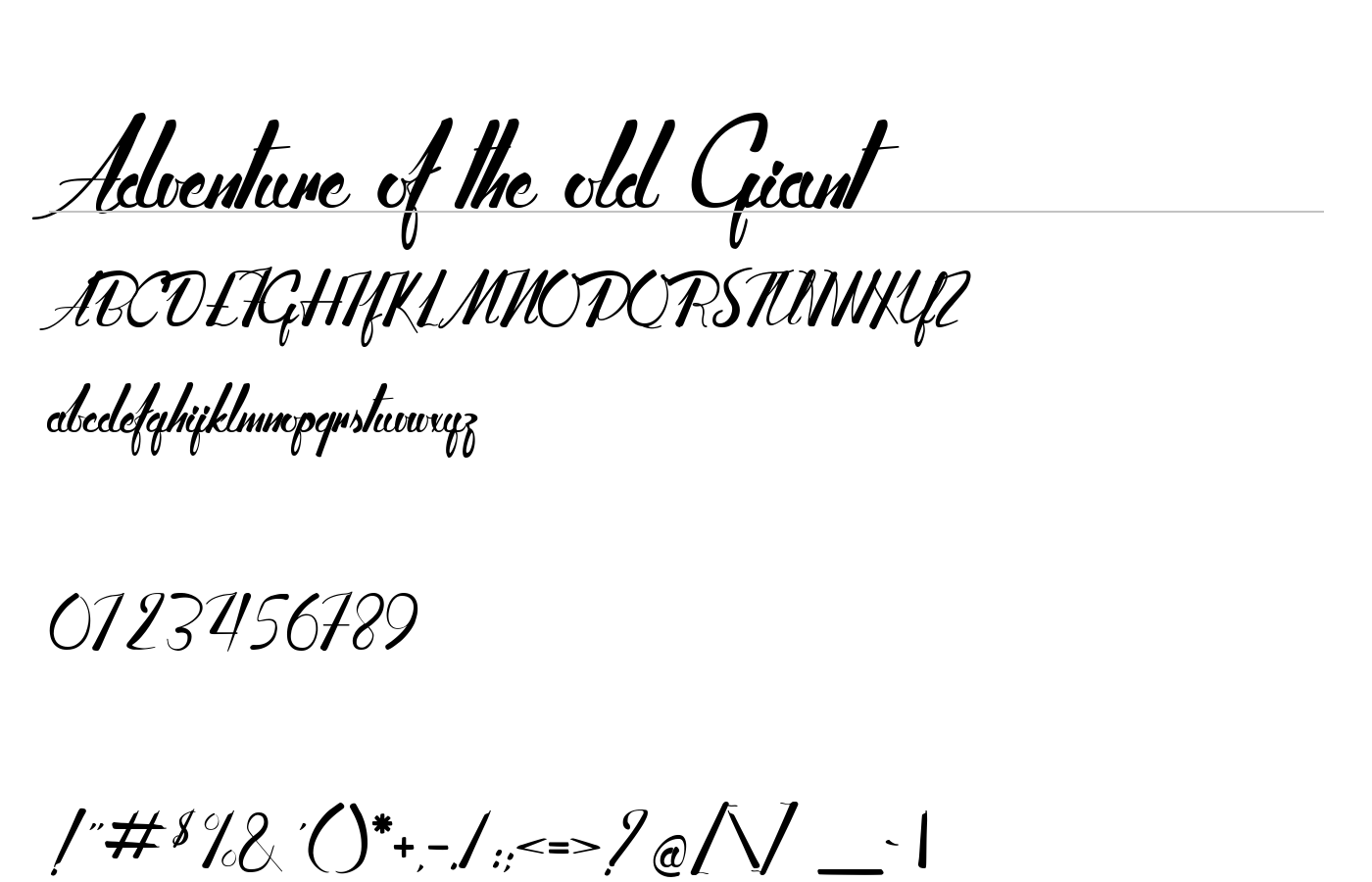
Adventure of the Old Giant is an elegant and flowing script font that brings a touch of sophistication and whimsy with its slender, high-contrast letterforms and graceful curves. Its tall, narrow style with sharp, calligraphic strokes makes it perfect for decorative uses such as invitations, logos, and branding that seek a refined yet adventurous personality. This font shines best in headline or display settings where its unique charm and artistic flair can truly stand out.
Adventure of the old Giant Font
About Adventure of the old Giant Font